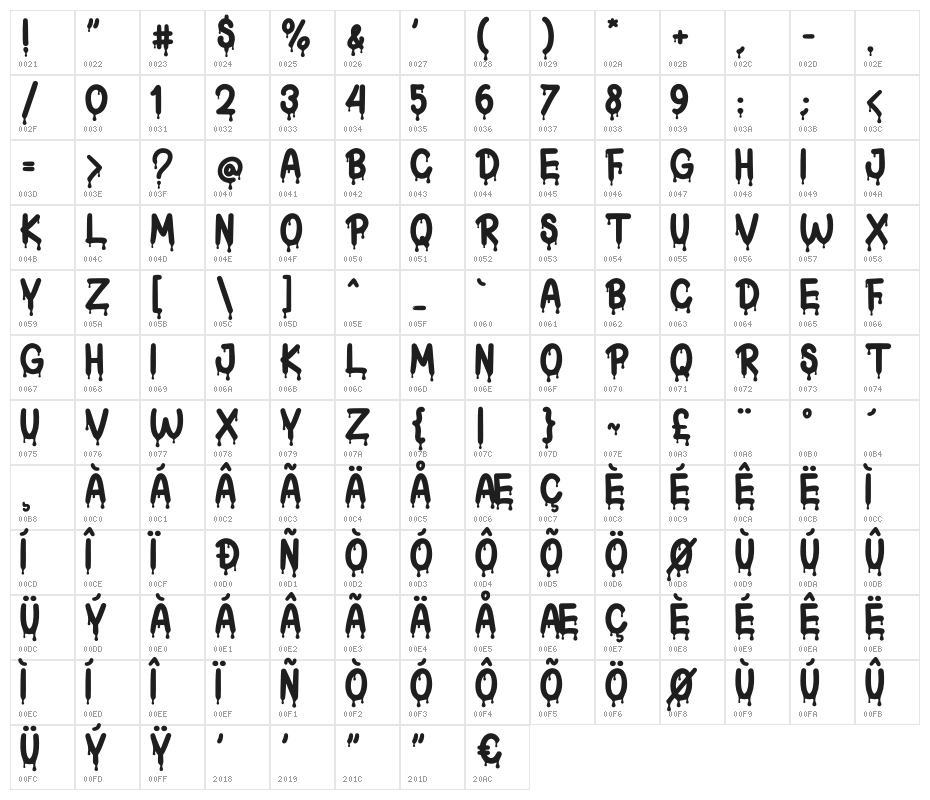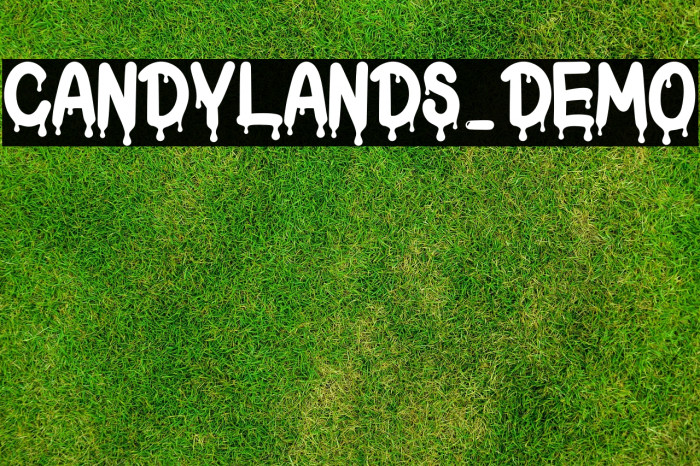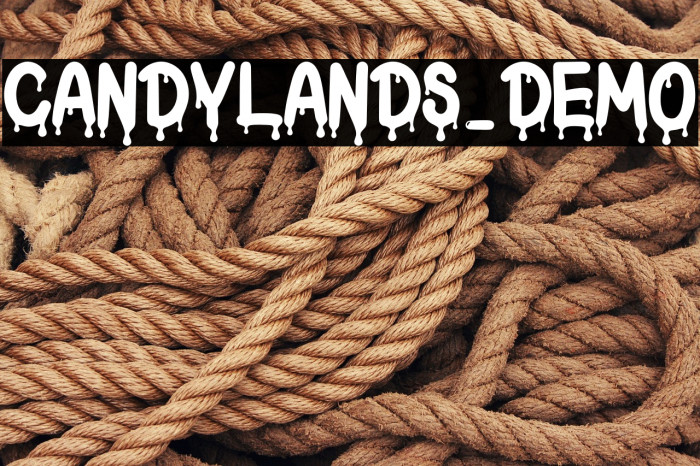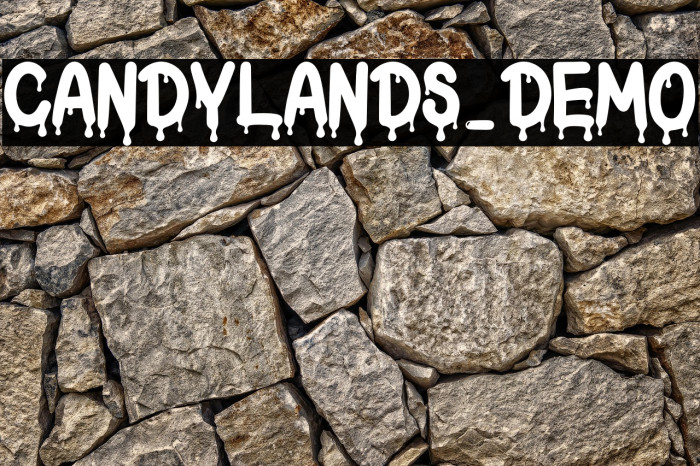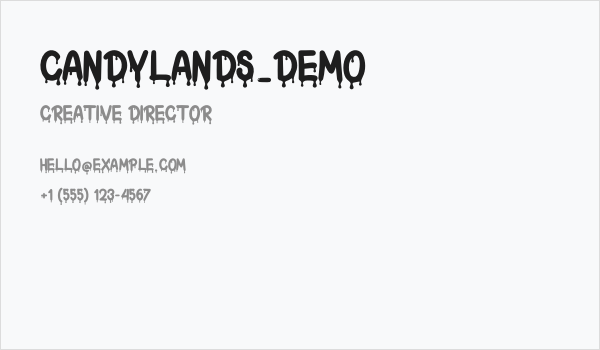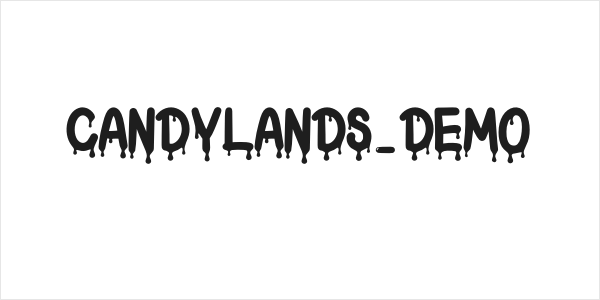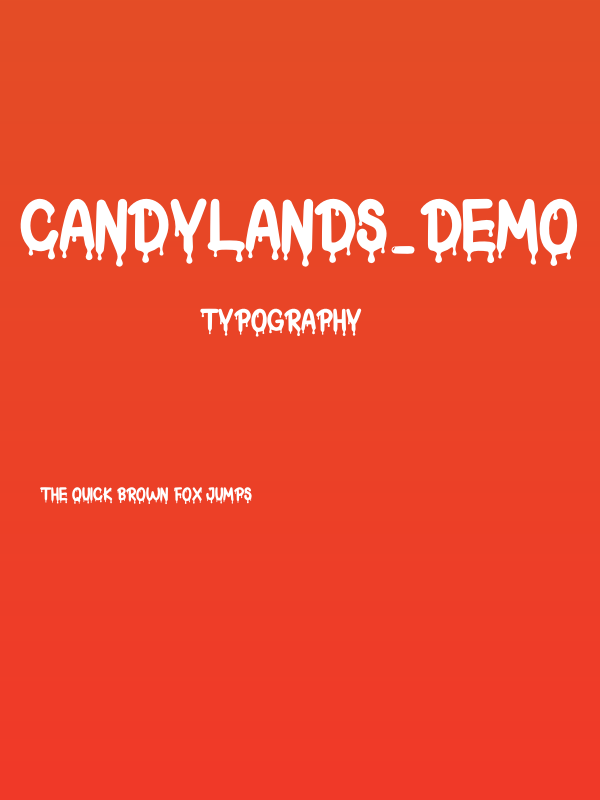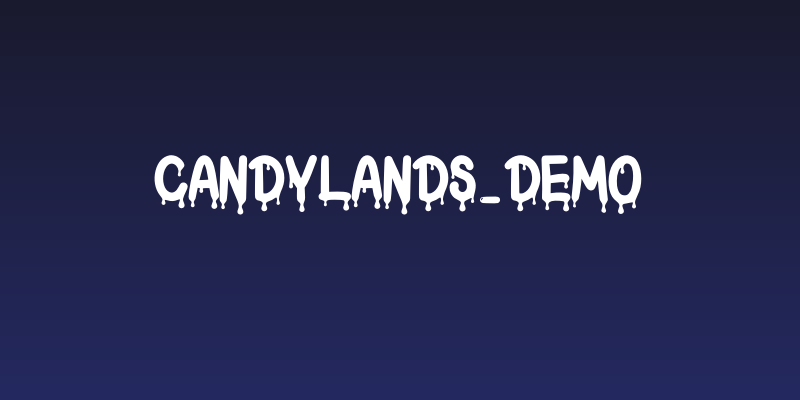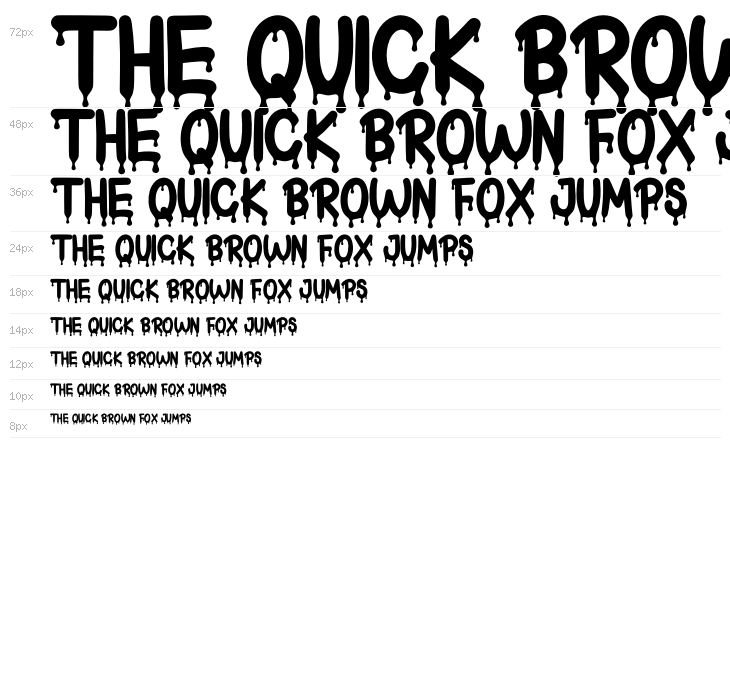
Candylands_DEMO Font
Candylands_DEMO Description
A playful, bold display font with a dripping, melting effect on each character, giving it a fun and slightly spooky appearance. The strokes are thick and rounded, with irregular edges and decorative drops extending from the bottom of each glyph.
| Overall Style | Decorative, Playful, Spooky |
| Use Case | Headlines, Posters, Logos, Event Invitations |
| Proposed Projects | Halloween posters, candy packaging, children's party invitations, playful branding, event flyers. |